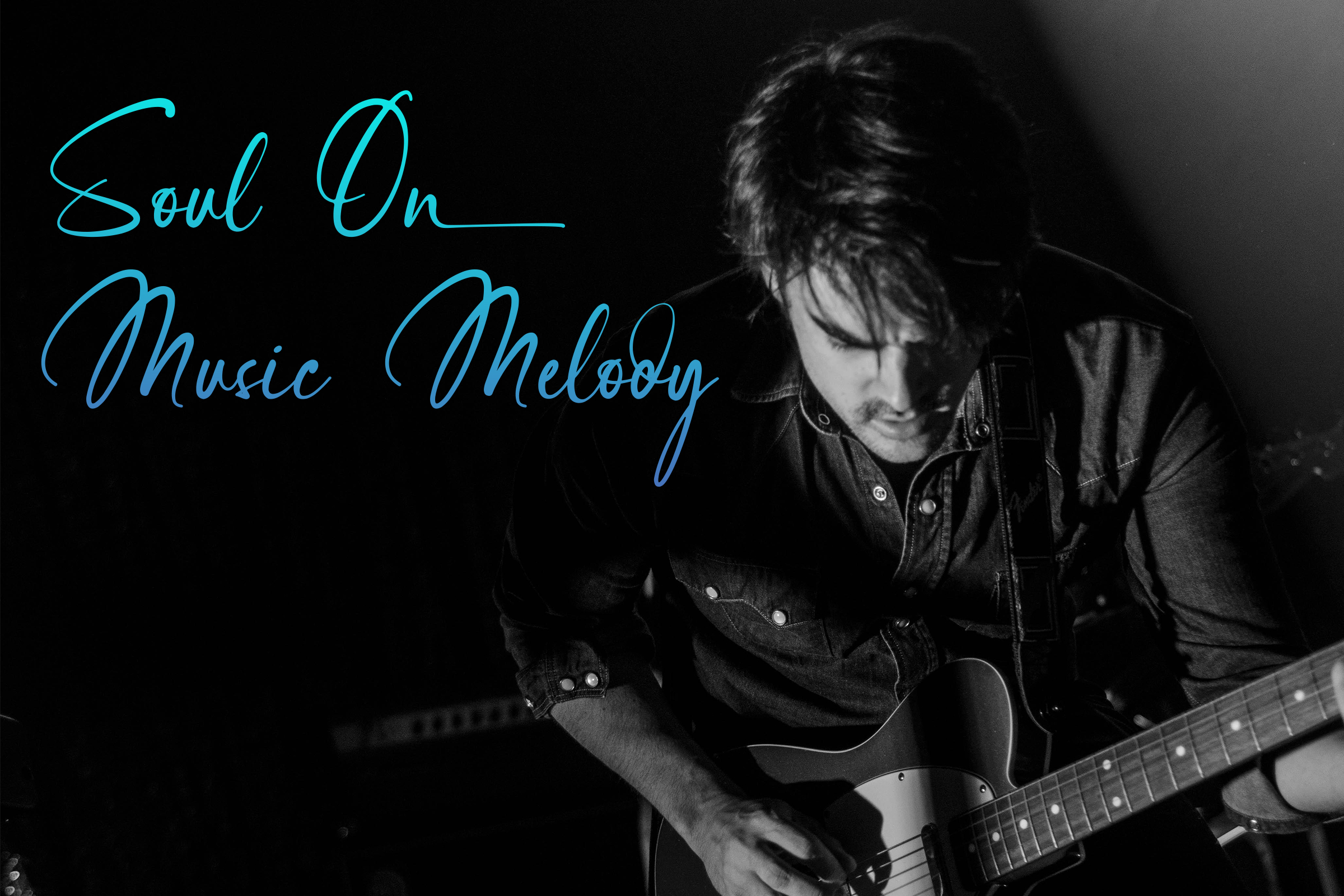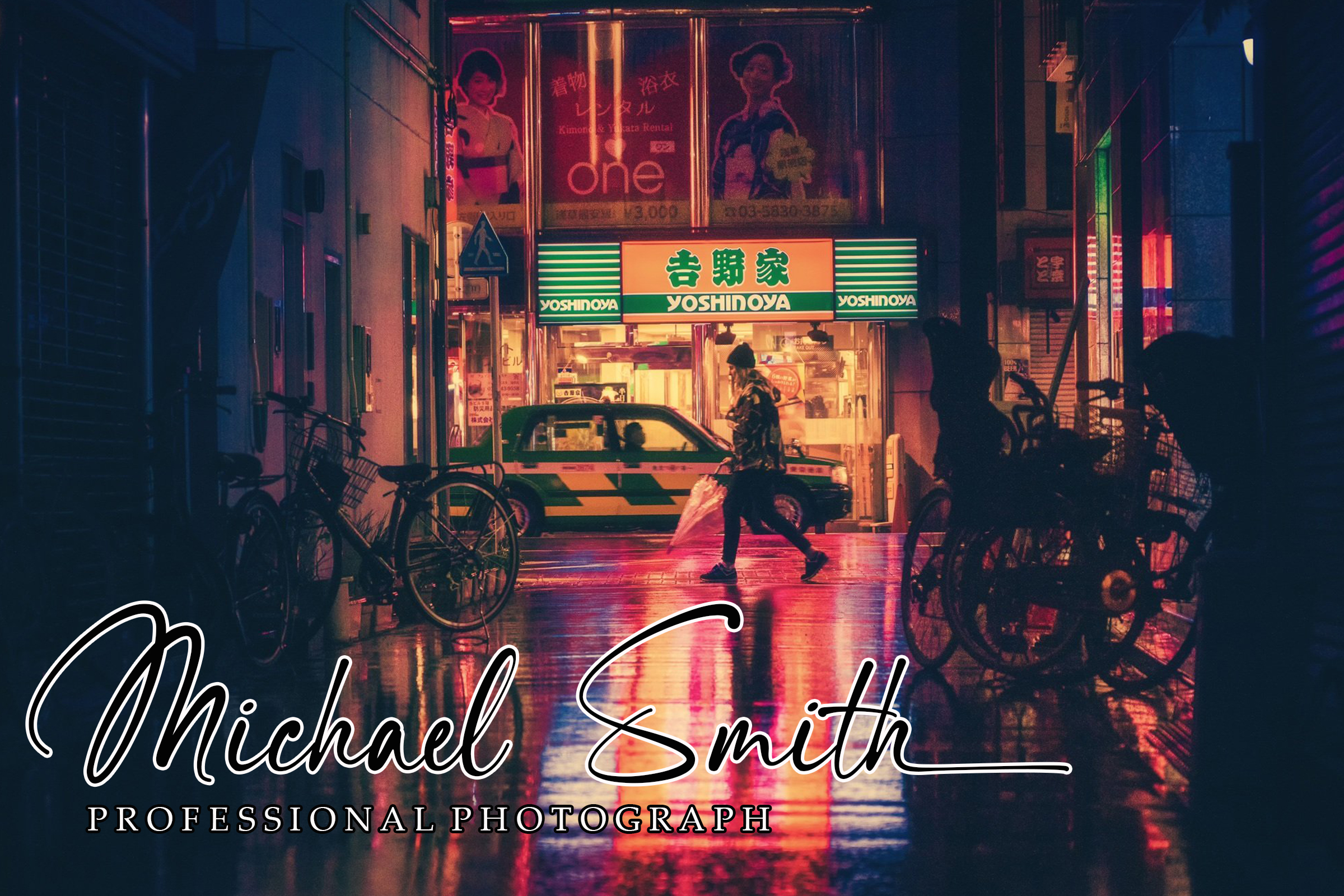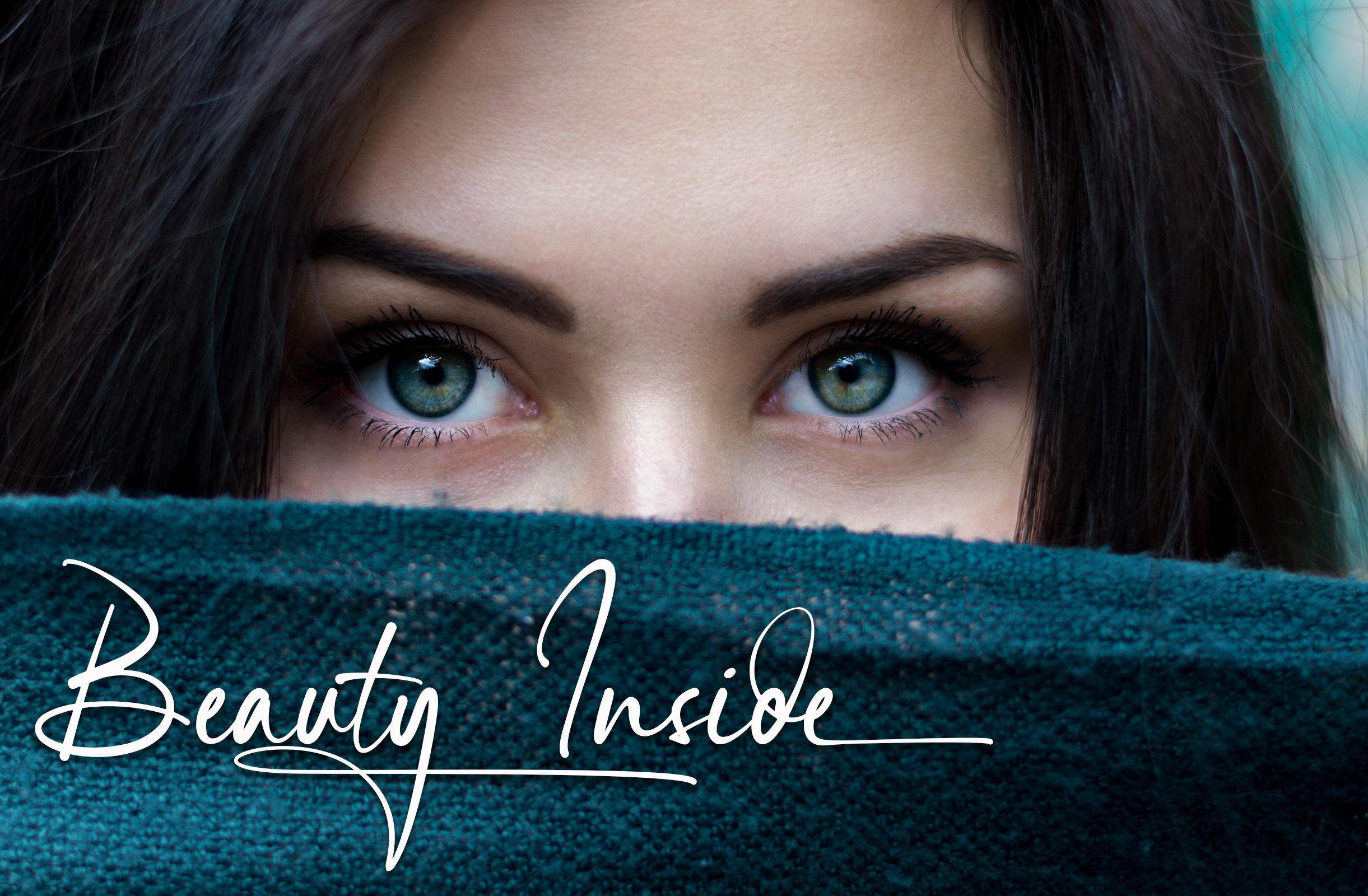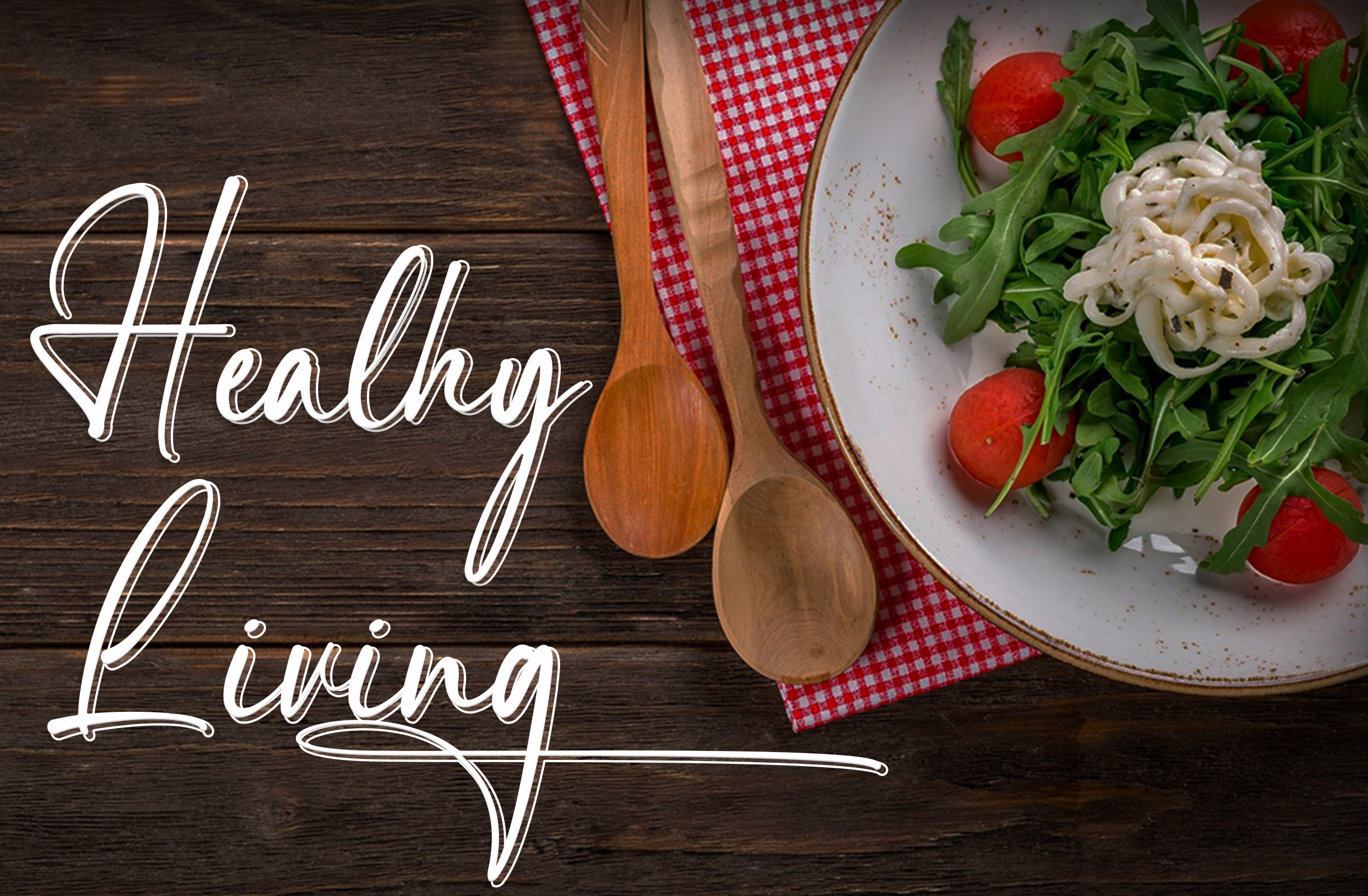
Signatria Font
Signatria Handwritten Font
It’s an elegant script font, with a delicate and classy look. Not too thin and not too thick, balanced and varied, this font was designed to enhance the beauty of your projects. This font is PUA encoded which means you can access all of the glyphs and swashes with ease!